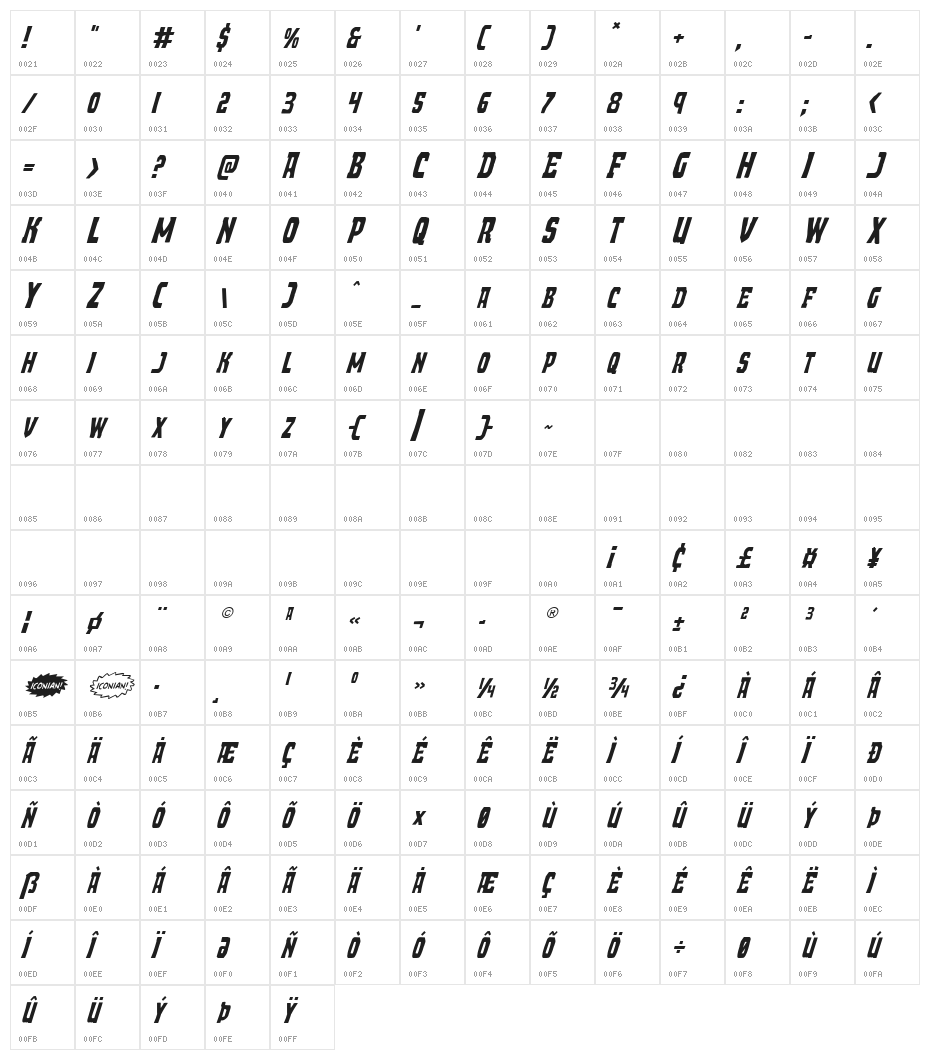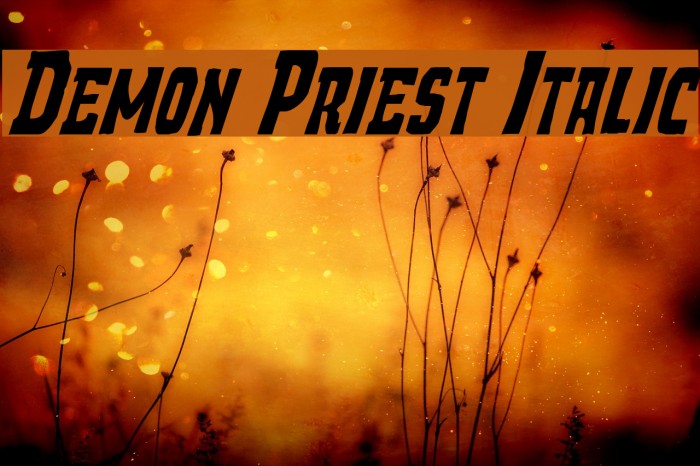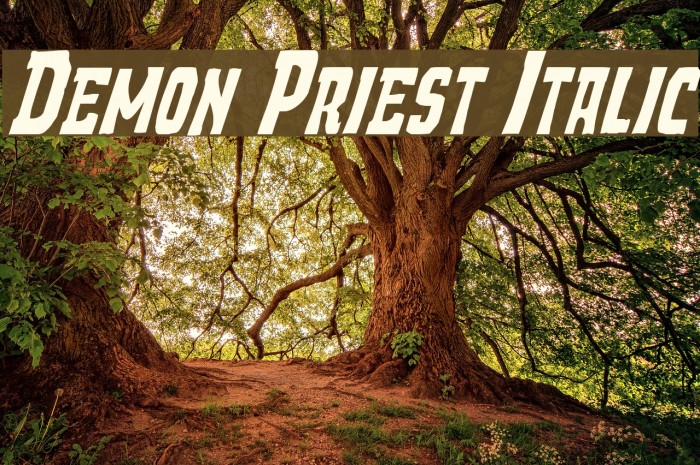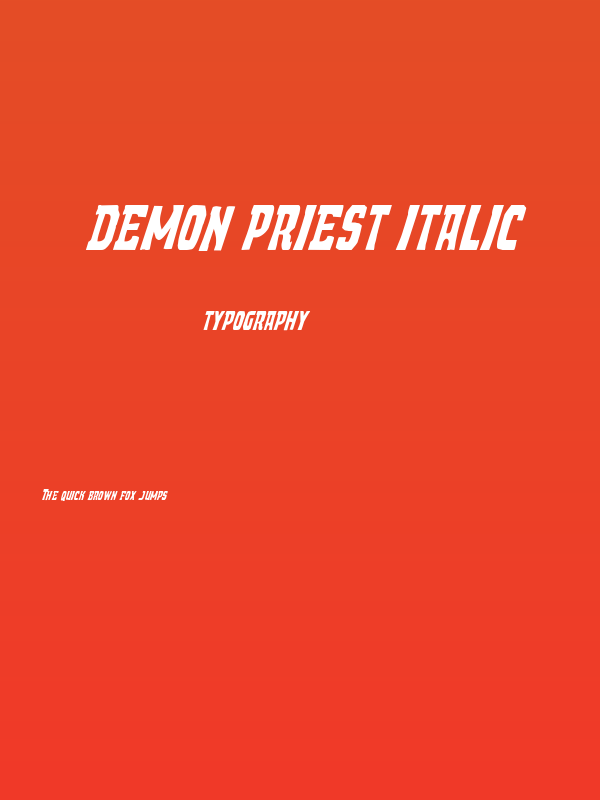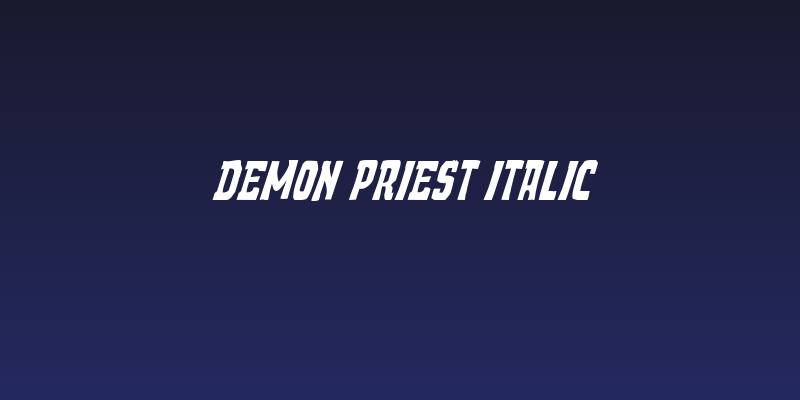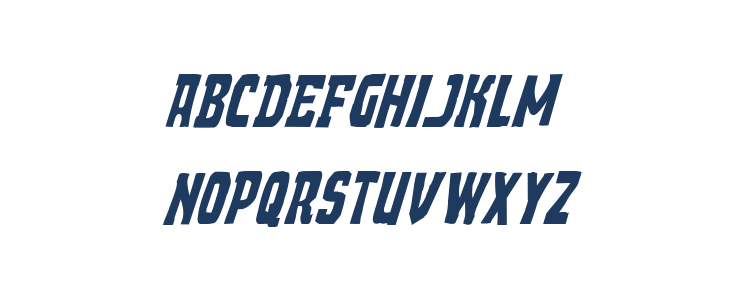
Demon Priest Italic Font
Demon Priest Italic Description
This font features a bold and dynamic design with sharp, angular edges and a distinct italic slant. The characters are heavily stylized, giving a sense of movement and energy. The uppercase and lowercase letters maintain a consistent style, with the uppercase being slightly more pronounced. Numbers and special characters follow the same bold and angular aesthetic, ensuring uniformity across all glyphs. The font's unique style makes it stand out, making it suitable for attention-grabbing designs.
| Proposed Projects | Ideal for posters, video game titles, sports branding, and any project needing a bold, energetic typeface. |